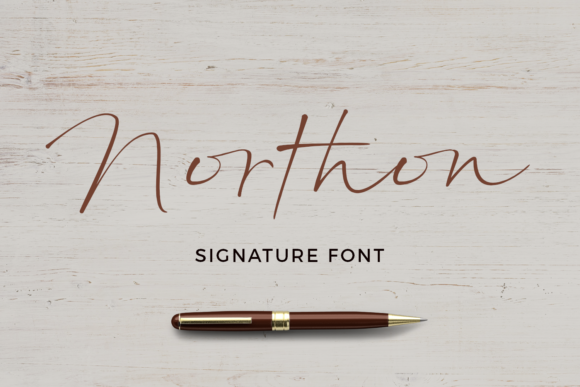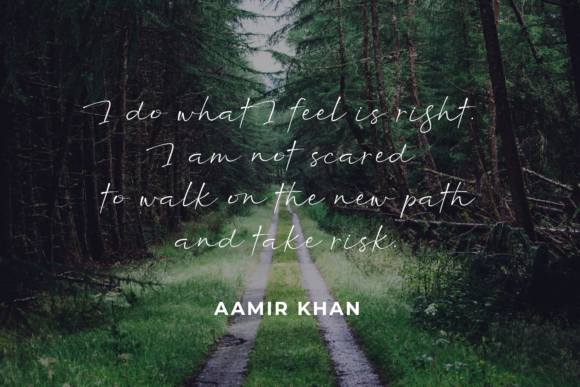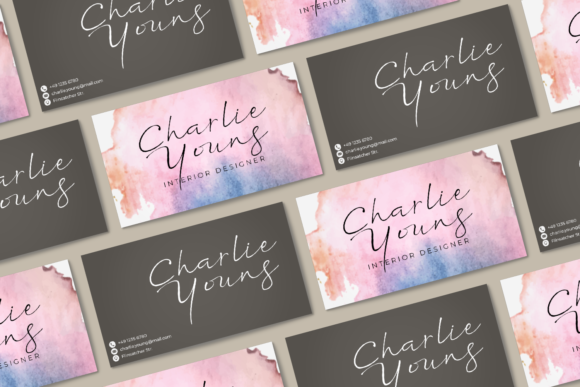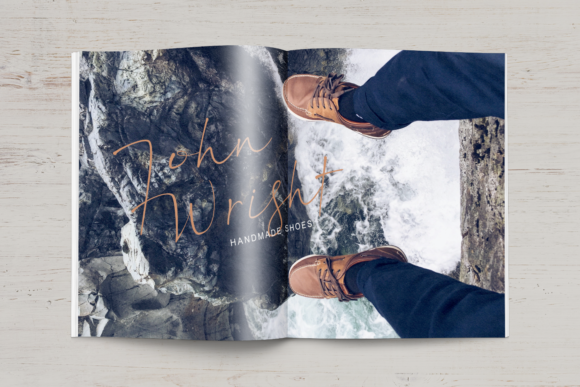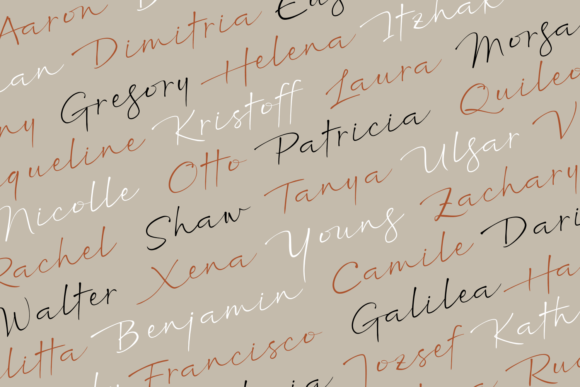
HomeScript FontsNorthon Font Script Fonts Northon Font FacebookXPinterestWhatsApp Northon Font Poster 2 Northon Font Poster 3 Northon Font Poster 4 Northon Font Poster 5 About Northon Font Northon is an incredibly elegant handwritten font that will update any design idea with its modern sophistication. DOWNLOAD ON CREATIVE FABRICAThis font is sold and delivered by Creative Fabrica. Font Canyon may earn a commission if you buy through this link. People also explored My Family Font Orange Frame Font Sweet Wanderlust Font The Soon Font Piday Font Hello Heart Monogram Font Embrace Family Font Go Fish Font Postamt Font 301 0 TagsNorthon Font Previous articleBeloved Daughter FontNext articleQutapy Font LEAVE A REPLY Cancel reply Comment: Please enter your comment! Name:* Please enter your name here Email:* You have entered an incorrect email address! Please enter your email address here Website: Save my name, email, and website in this browser for the next time I comment. Personal Use Free Messy Personal Use Free Read more about this font Kaylafiz Personal Use Free Read more about this font Glosery Personal Use Free Read more about this font Multicolore Personal Use Free Read more about this font BLOG Best Fonts for T-Shirt Design – Top 2025 Picks In 2025, t-shirt design has become more than just fashion—it's a form of self-expression. Whether you're... Top 7 Google Fonts Alternatives for Faster and Privacy-Friendly Web Design (2025) How to Install and Use Fonts on Windows, macOS, and Web Projects Free Fonts Risk: Why Free Fonts Can Be Dangerous for Designers